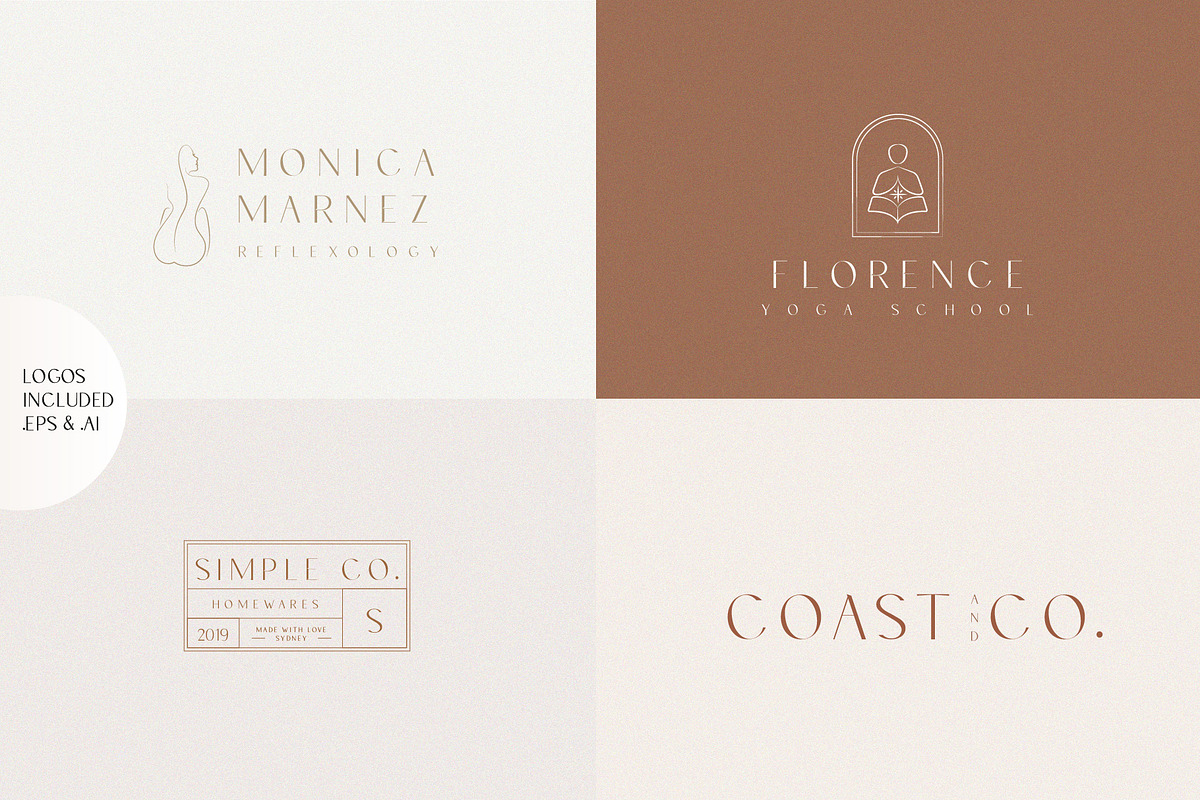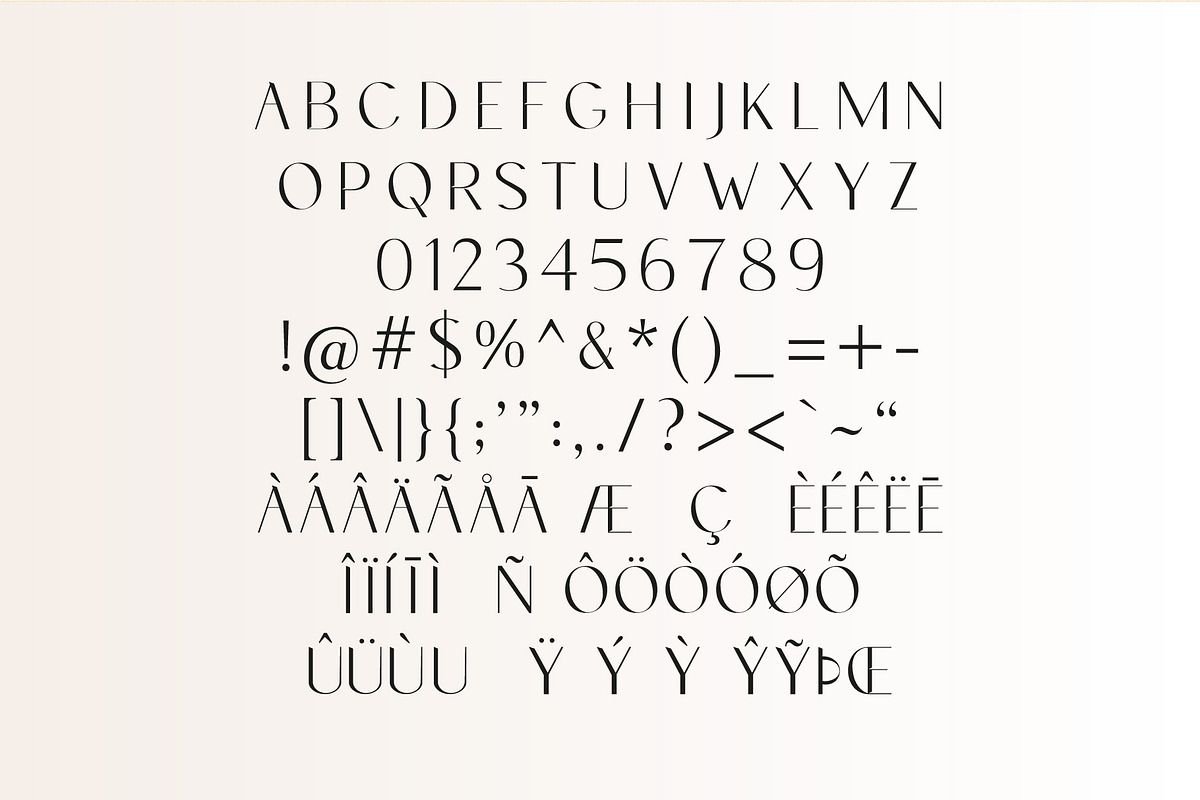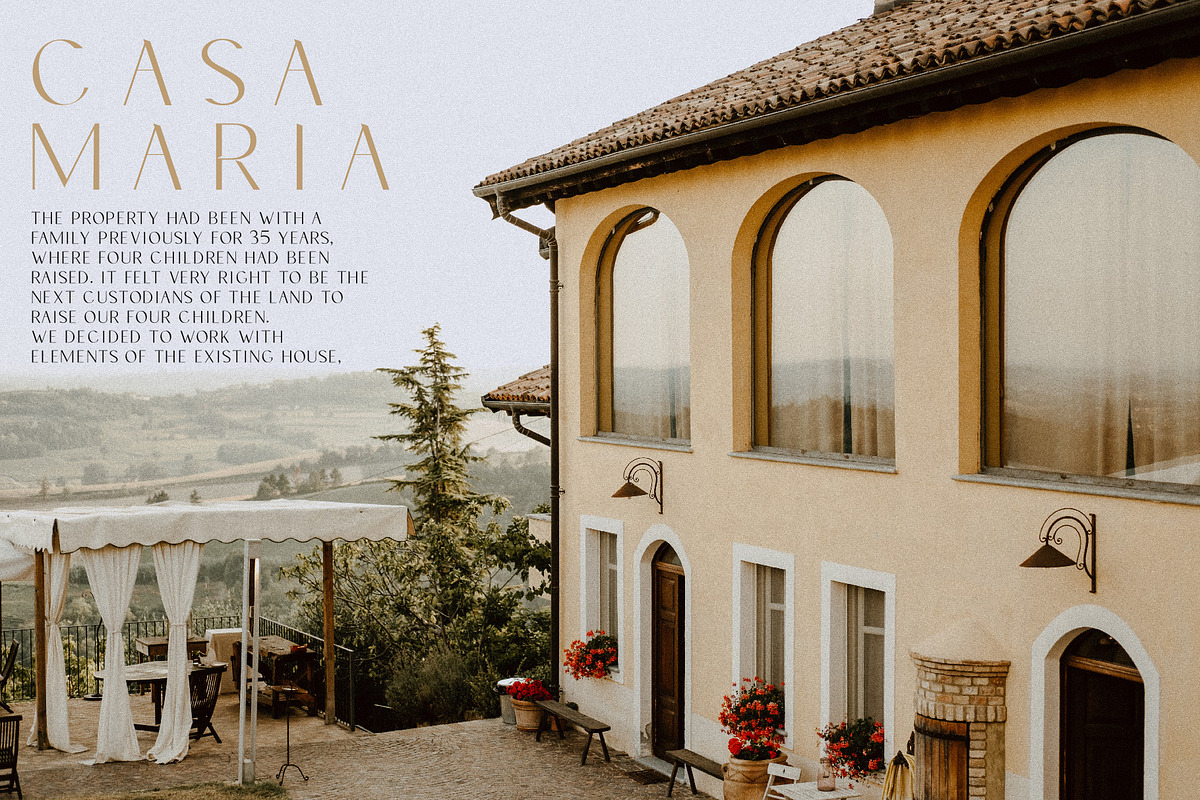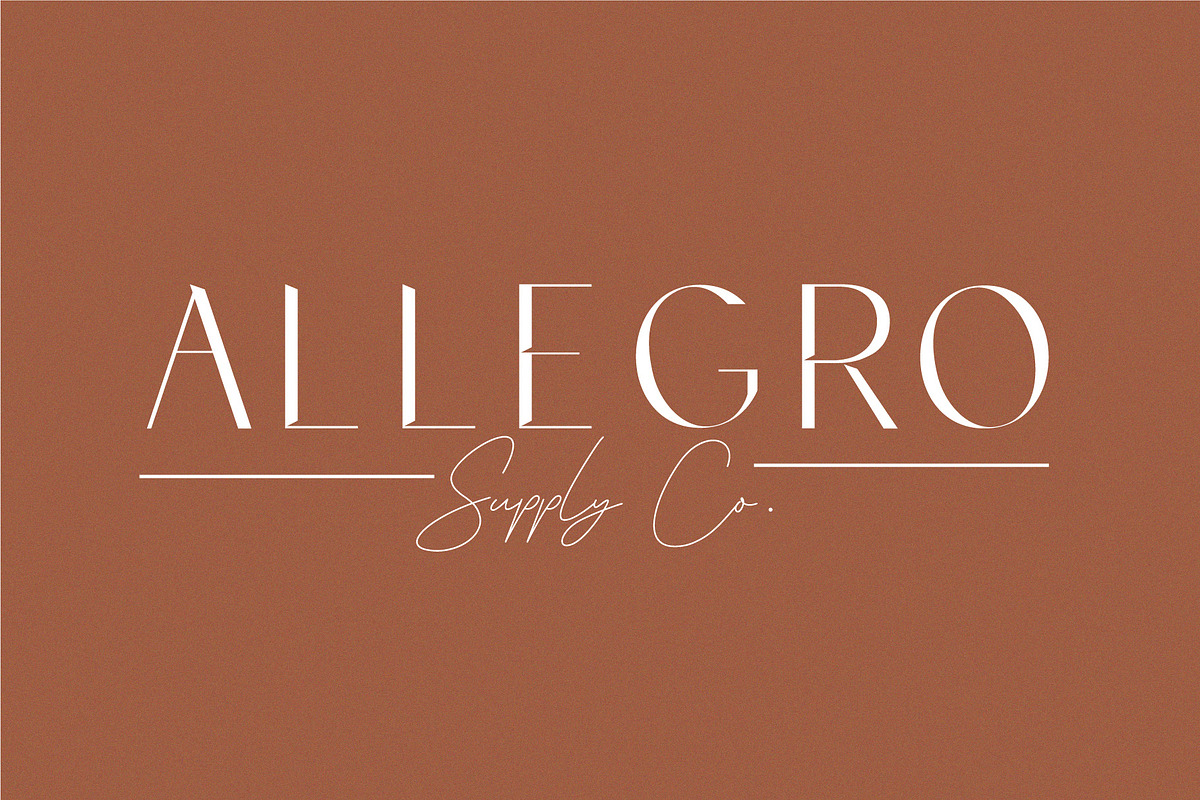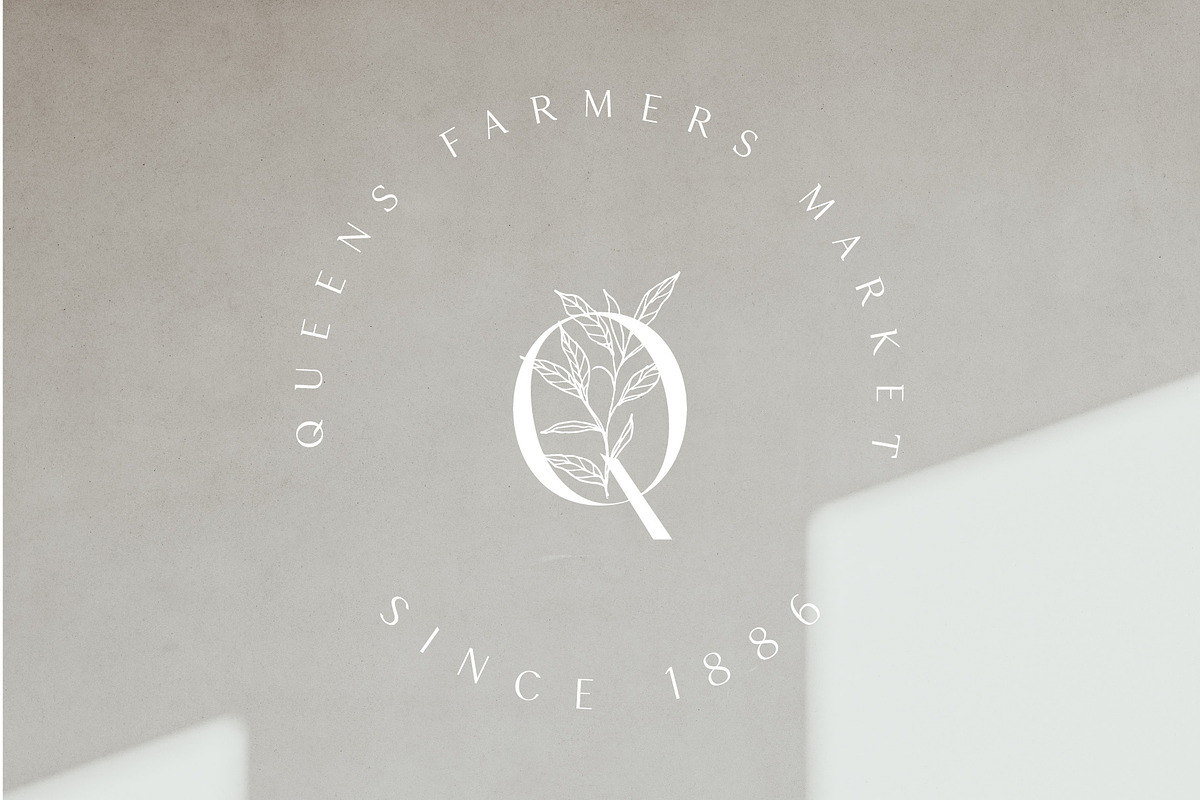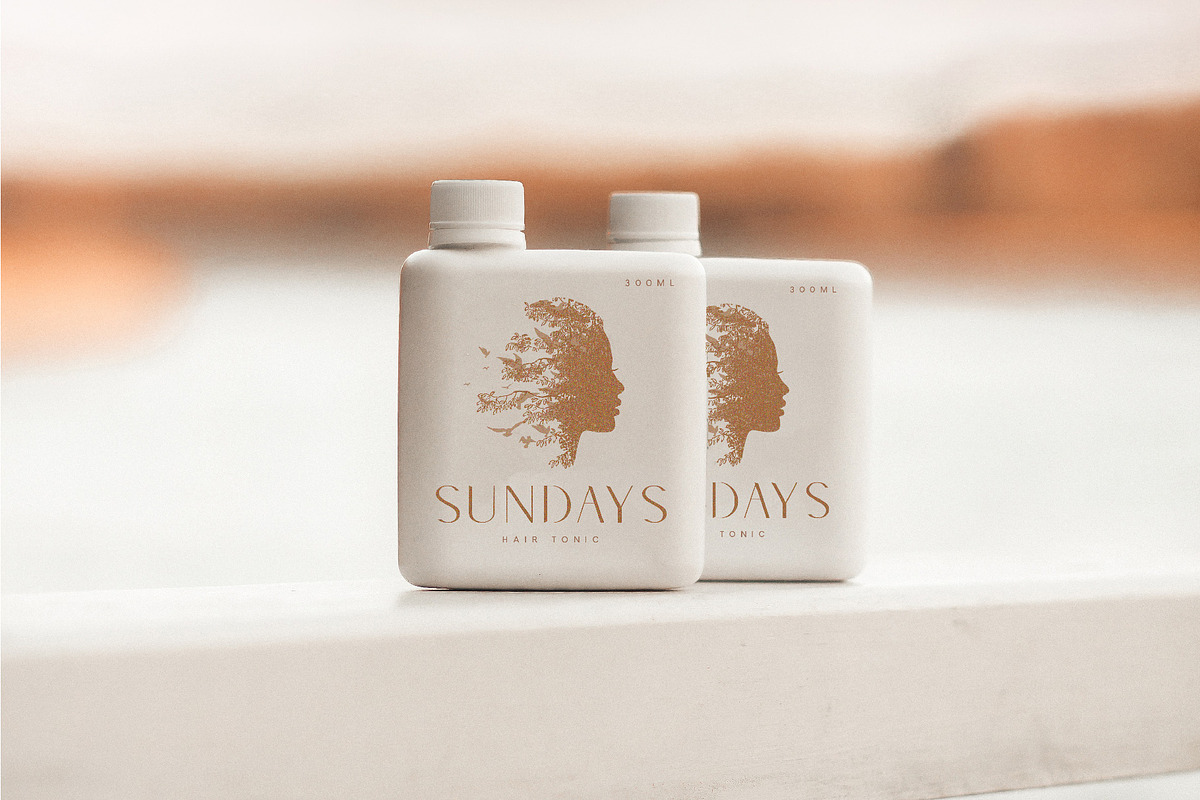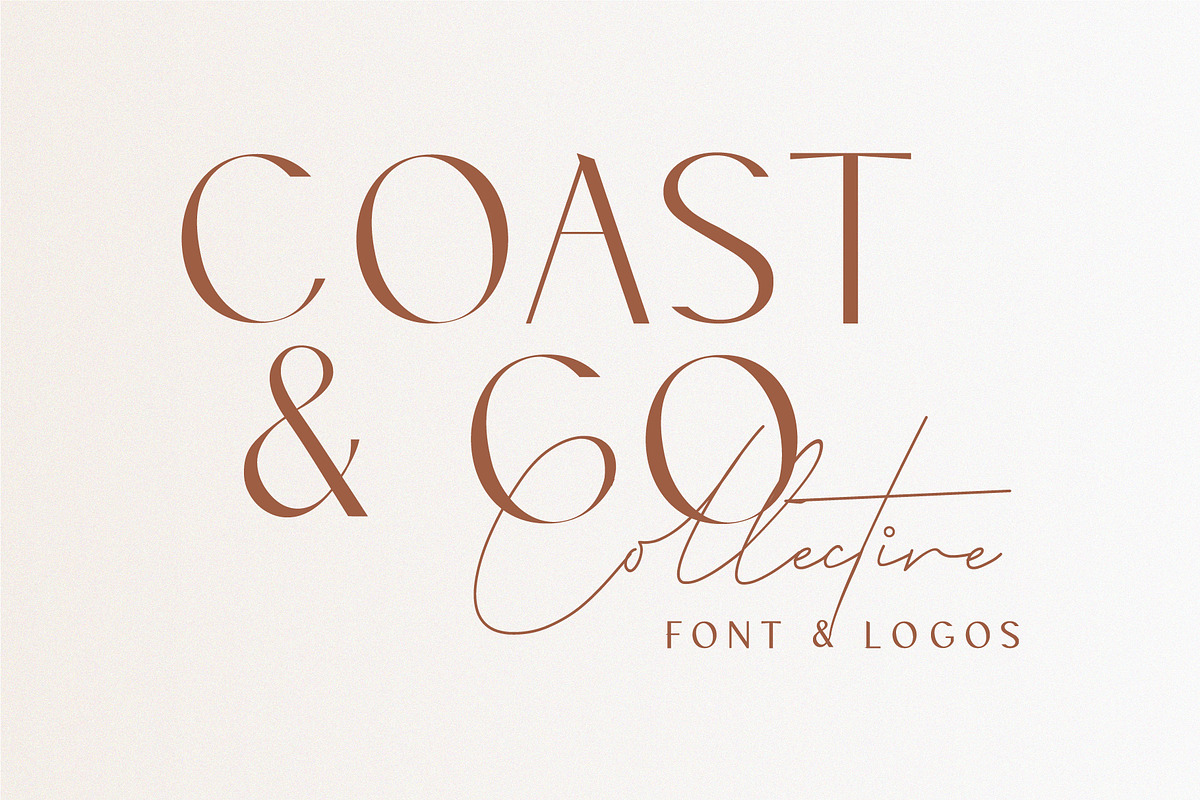
Coast & Co Font and Logos
A modern Serif Font with extra logos thrown in! Coast is a unique typeface blending those old Spanish villa vibes with modern minimalist design. It's unique cut ins &curves make it a memorable font for stylish logos, mastheads and pull quotes. It comes with 4 Logos in .Ai or .EPS files that match the font perfectly. It pairs nicely with all script fonts like "Queenstown Signature Font " seen above.